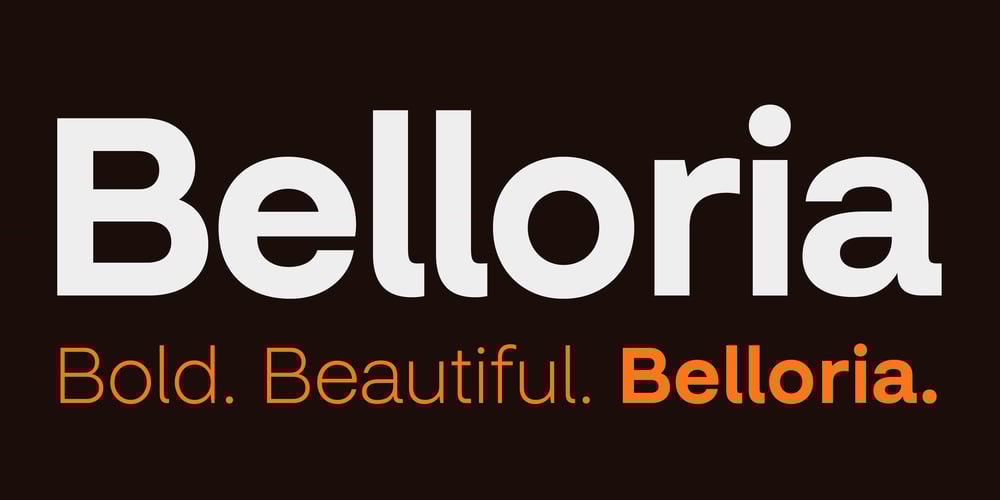
Belloria Font Family was designed by Matt Chansky and published by Matt Chansky. Belloria contains 10 styles and family package options. Introducing Belloria, a modern universal font designed to seamlessly bridge the gap between elegance and accessibility in the digital age. Crafted with meticulous attention to detail, Belloria embodies a harmonious fusion of timeless sophistication and contemporary simplicity. With 5 weights and 730 glyphs per — Belloria is effortlessly versatile, not to mention so very multilingual. At its core, Belloria is characterized by clean lines and balanced proportions, lending it a sense of clarity and readability across various mediums. The sleek, sans-serif design and high x-height exudes a sense of modernity, making it ideal for a wide range of applications, from print to web to mobile interfaces.One of the defining features of Belloria is its versatility. Whether used for body text or headlines, its carefully crafted letterforms maintain legibility, ensuring a consistent reading experience across different devices and screen resolutions. From bold statements to subtle accents, Belloria adapts effortlessly to any typographic context.Beyond its technical prowess, Belloria possesses a distinctive aesthetic charm that sets it apart. Its subtle architecture and refined letter spacing convey a sense of warmth and approachability, inviting readers to engage with content effortlessly. This blend of form and function ensures that Belloria not only looks beautiful but also enhances the overall user experience.Belloria represents a modern interpretation of typographic excellence, where form meets function in perfect equilibrium. Whether crafting sleek user interfaces, designing striking editorial layouts, or communicating effectively across diverse channels, Belloria empowers designers to create with confidence and clarity in the digital landscape. Bold. Beautiful. Belloria.